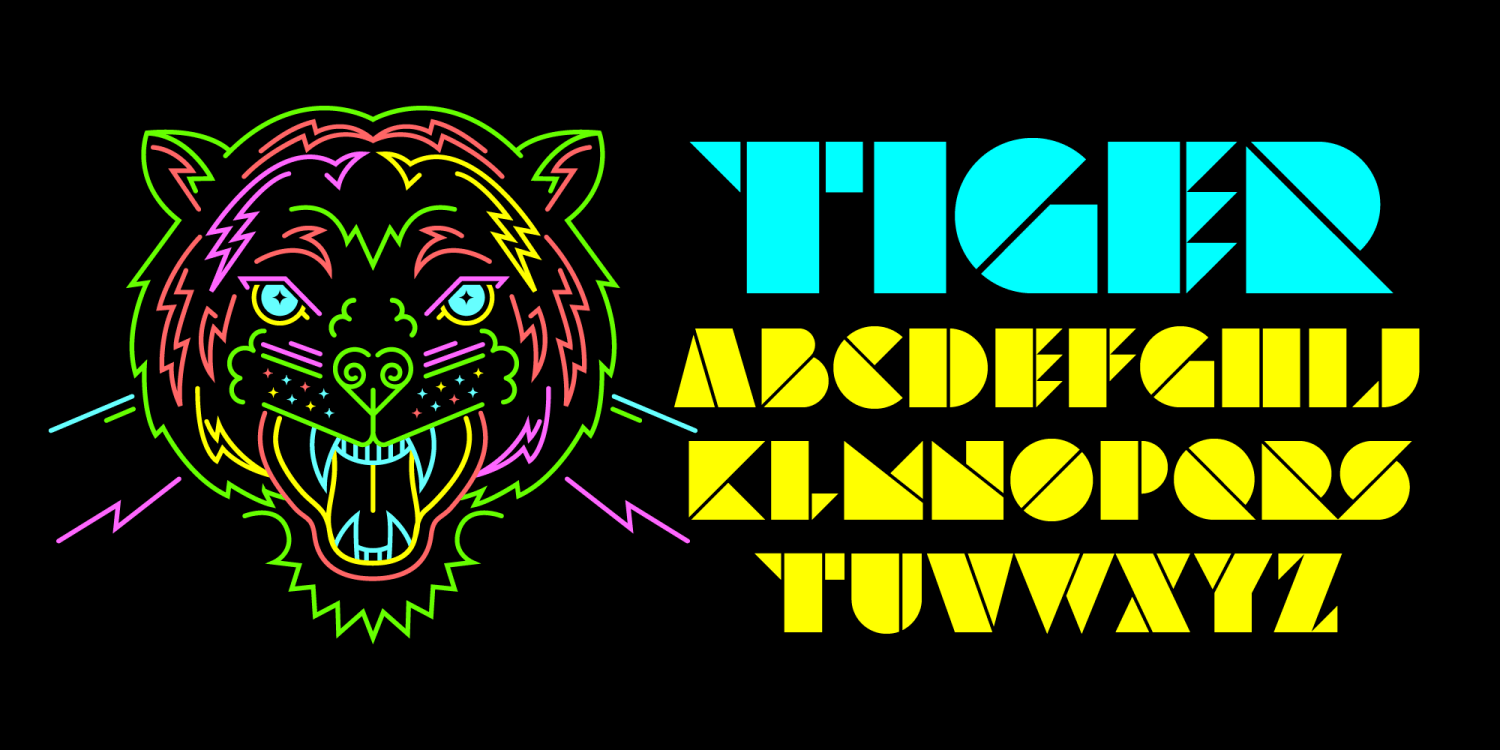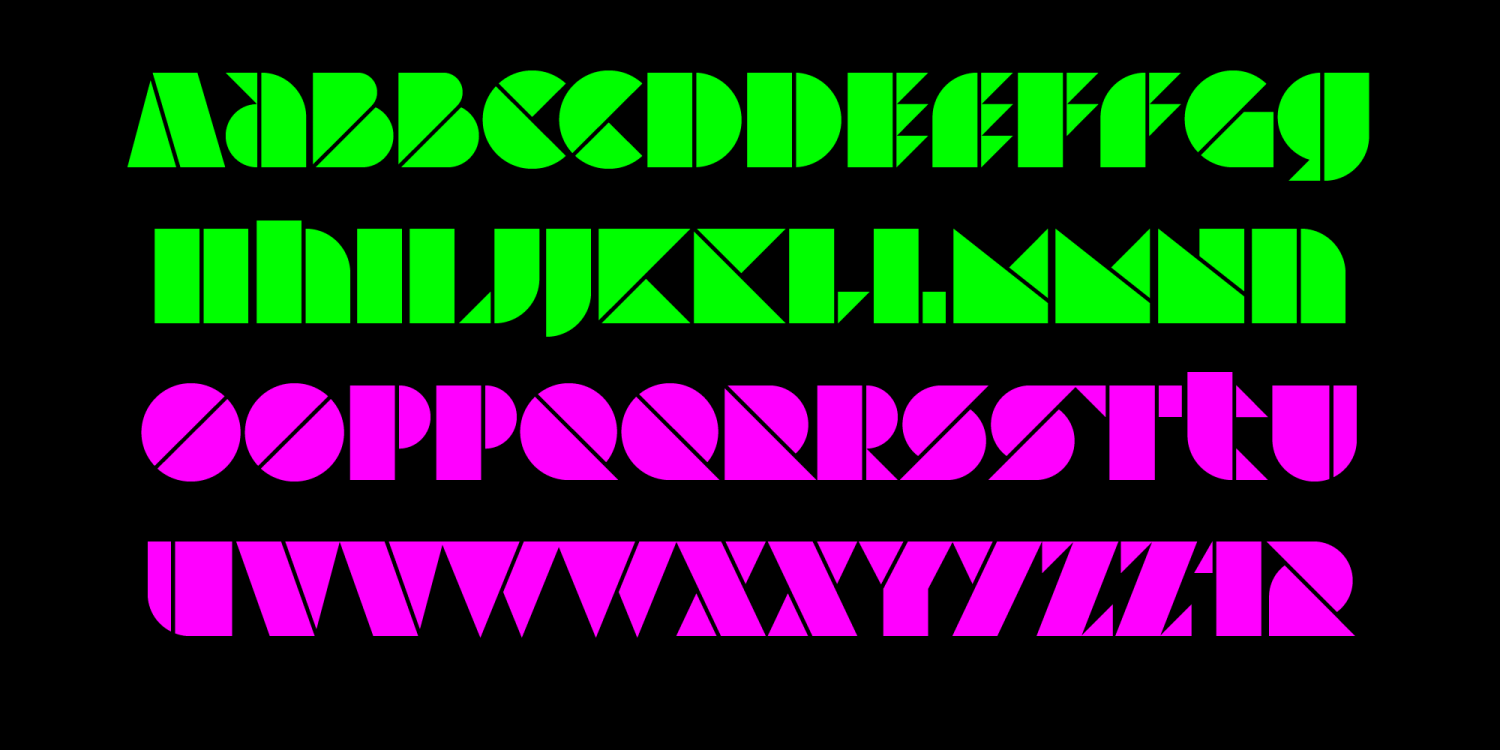
This ferocious font should be included in a font time capsule sent out to space. Street artists love the stencil styled forms, hipster designers love the sleek futuristic angles and font collectors love that it's one more Fontalicious font they can add to the ever-growing collection. I really honestly see this being used in the ad campaign for a new men's cologne in 2099, just you wait and see.